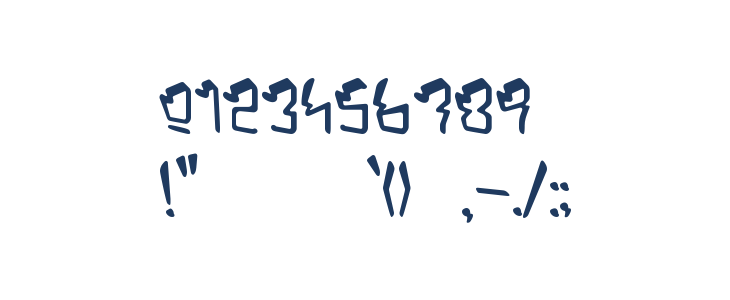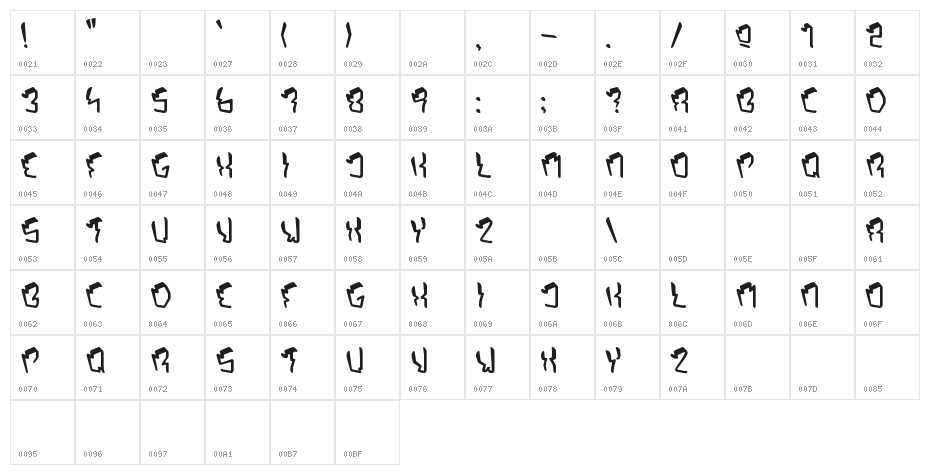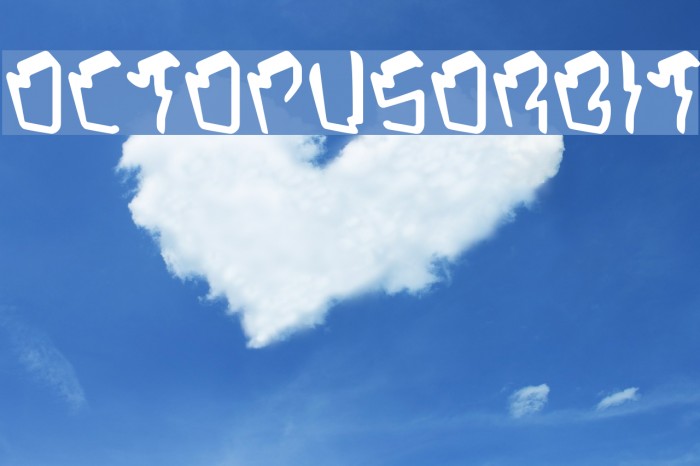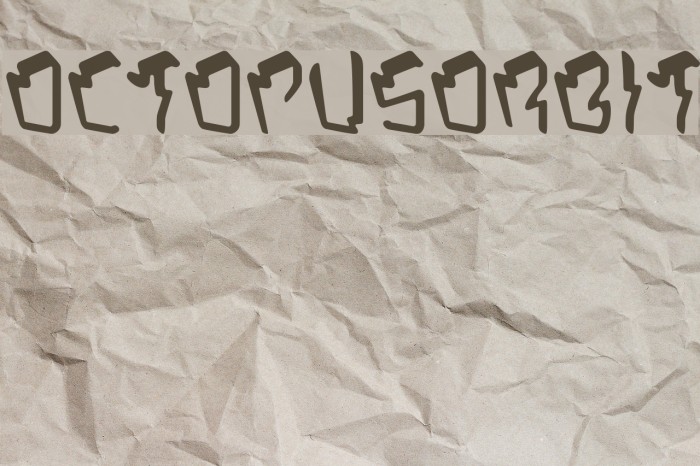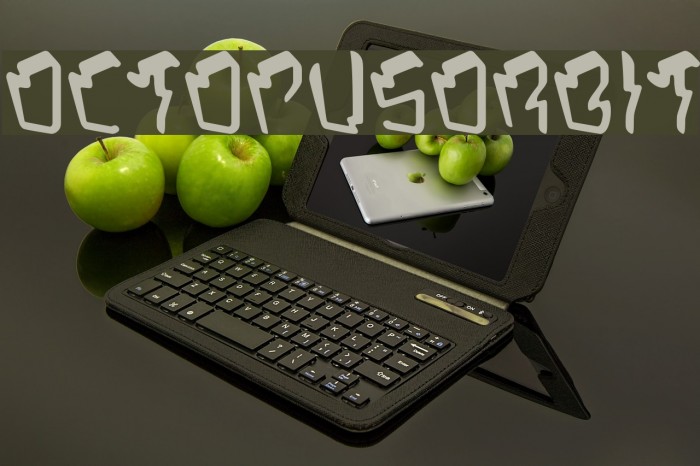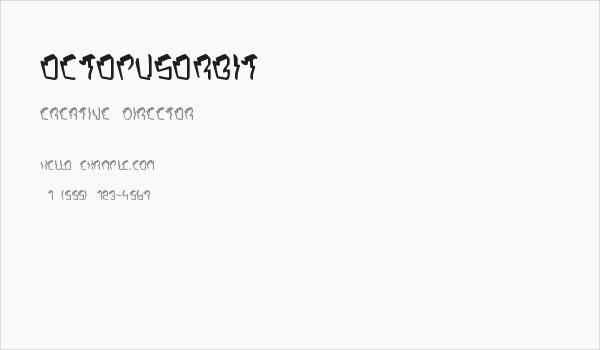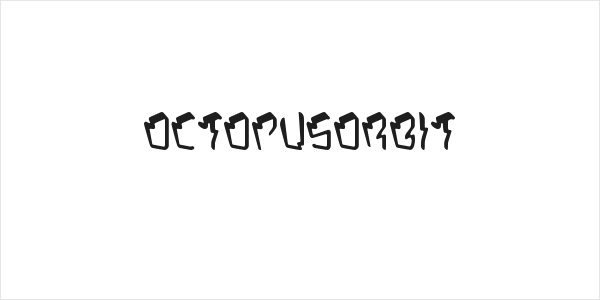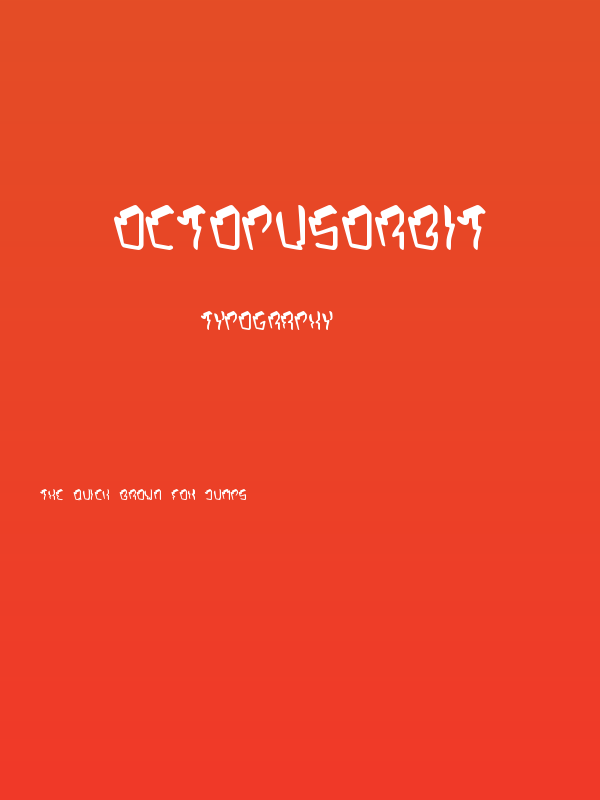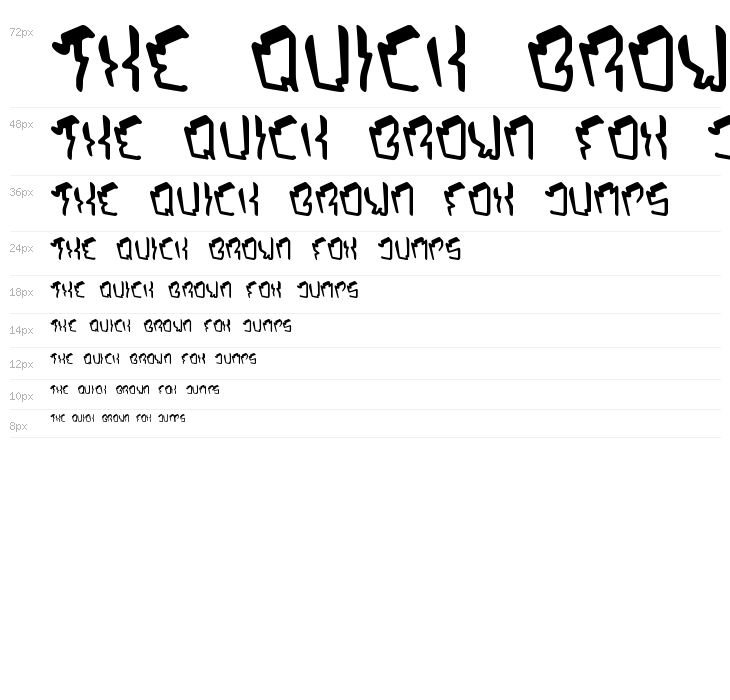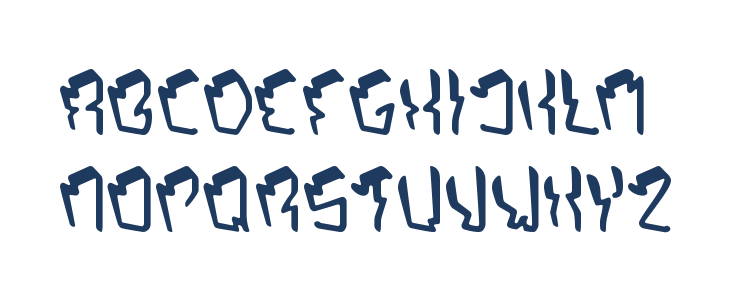
OctopusOrbit Font
OctopusOrbit Description
This font features a bold and edgy design with angular, geometric shapes that give it a futuristic and dynamic appearance. The characters are distinct and have a strong presence, making them ideal for attention-grabbing designs. The uppercase and lowercase letters maintain a consistent style, with sharp edges and a slightly condensed form. Numbers and special characters follow the same aesthetic, ensuring uniformity across all elements. The font's unique style makes it suitable for creative projects that require a modern and unconventional look.
Proposed ProjectsIdeal for sci-fi themed posters, video game titles, and modern branding projects.